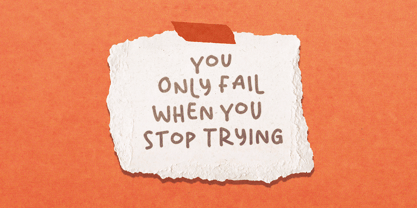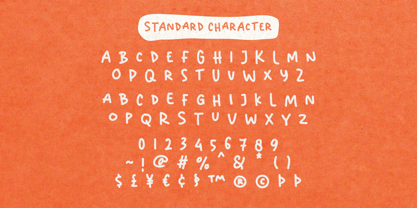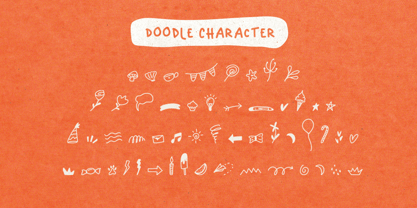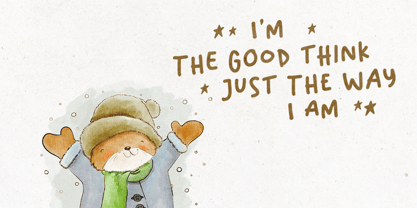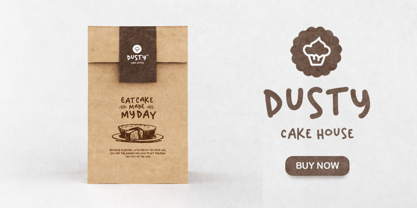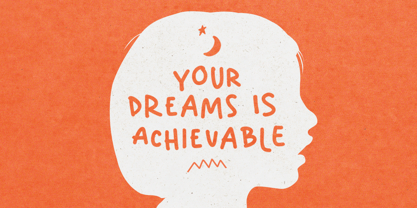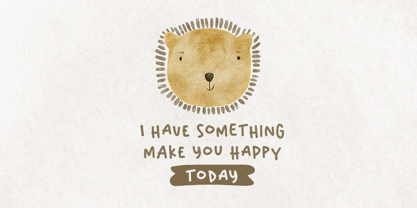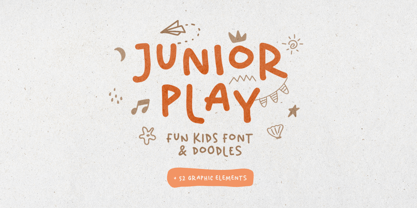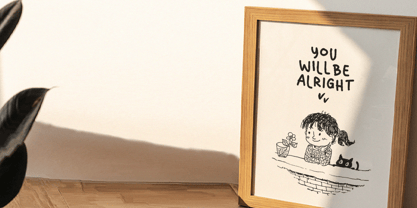
Junior Play
by Bale Type
The Junior Play Font Family was designed by Sarid Ezra, Dzikrul Aulia and published by Bale Type. Junior Play contains 2 styles and family package options. More about this family
Introducing our newest font, Junior Play! This playful and whimsical font is perfect for creating fun and engaging designs for children. The font features hand-drawn doodle-style letters, numbers, and punctuation marks that have a unique, carefree look.
Junior Play have rounded edges and uneven lines, giving them a charmingly hand-drawn appearance that suitable for various design projects, such as children's books, toys, games, educational materials, posters, and more. It can also be used to create invitations and greeting cards for children's birthdays and other special occasions. the special part, in the package also including doodle font that will complement the font! Junior play also support multi language.
Designers: Sarid Ezra, Dzikrul Aulia
Foundry: Bale Type